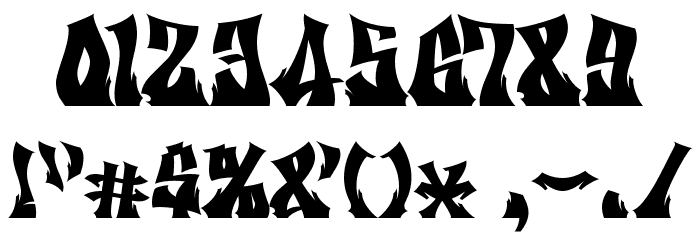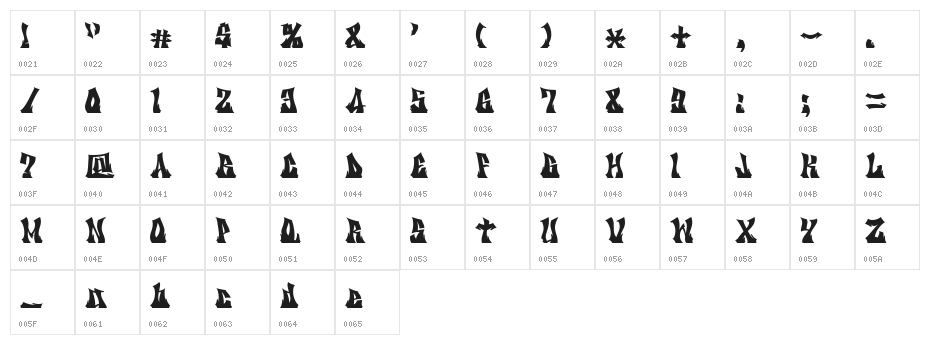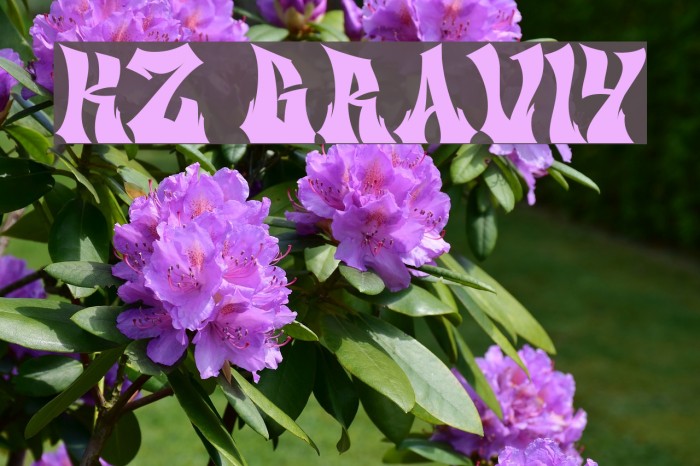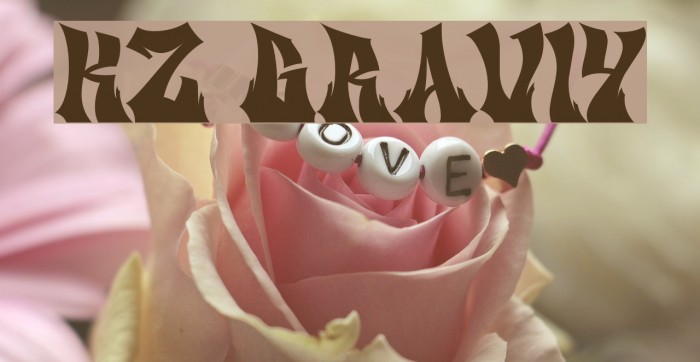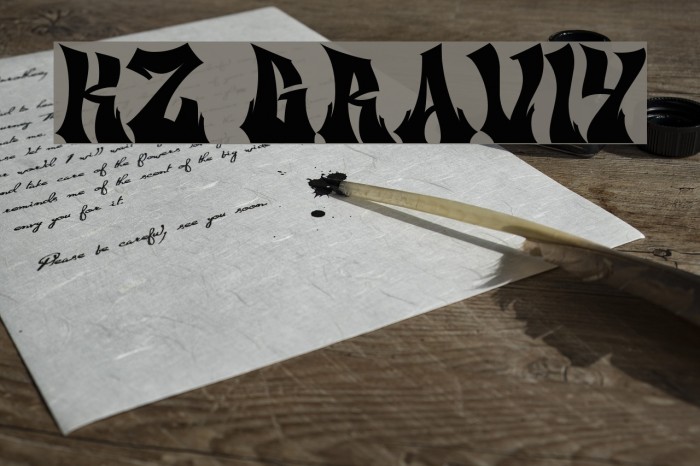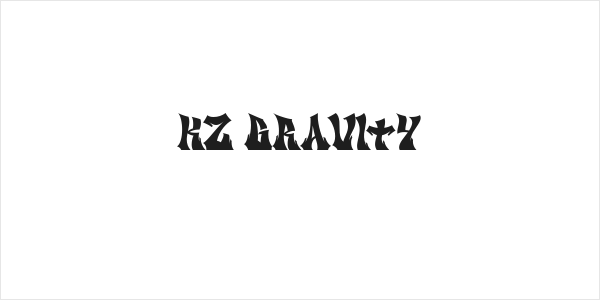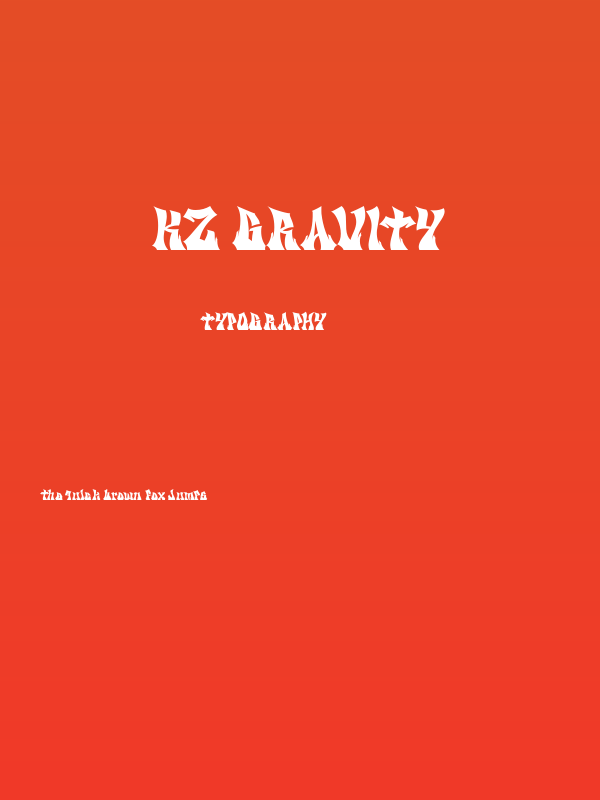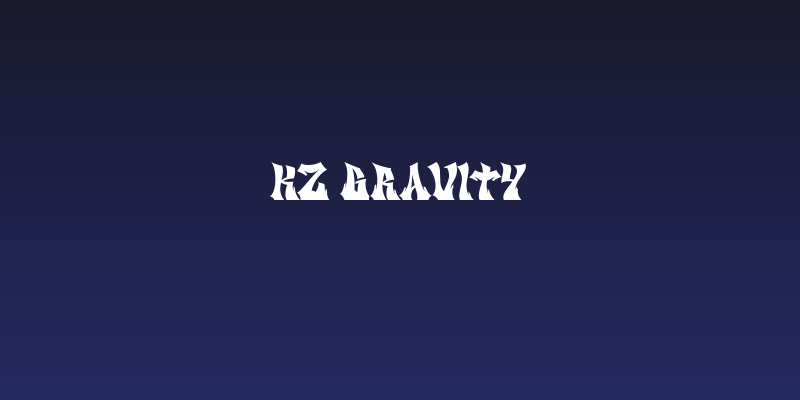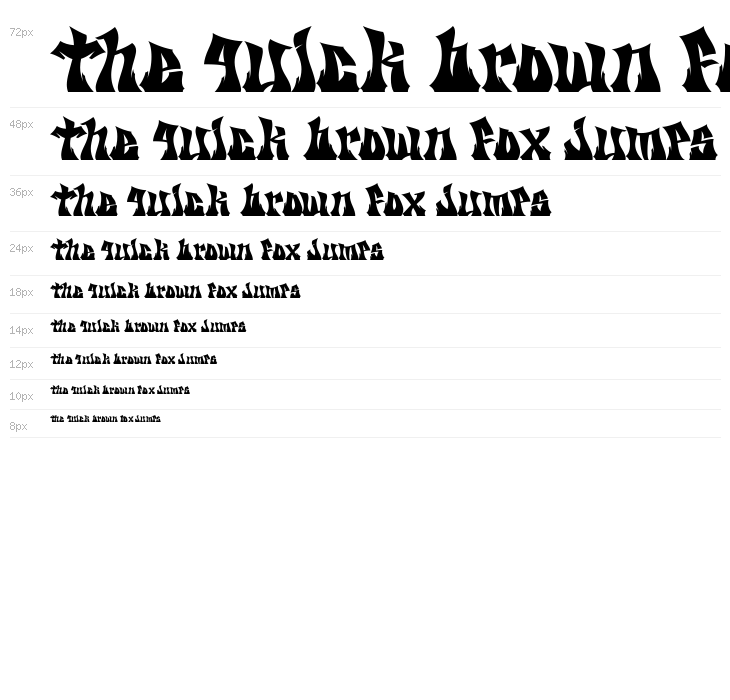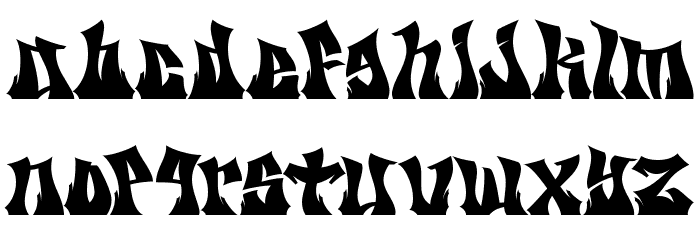
KZ GRAVItY Font
KZ GRAVItY Description
This font features a bold and dynamic style with sharp, angular edges that give it a distinct, aggressive appearance. The characters are heavily stylized, resembling flames or jagged shards, which adds a sense of movement and intensity. The uppercase and lowercase letters maintain a consistent design, ensuring uniformity across the typeface. The numbers and special characters follow the same aesthetic, making them cohesive with the overall look. This font's unique design makes it stand out, ideal for projects that require a strong visual impact.
| Proposed Projects | Ideal for music album covers, video game titles, posters, and branding that requires a bold, edgy look. |